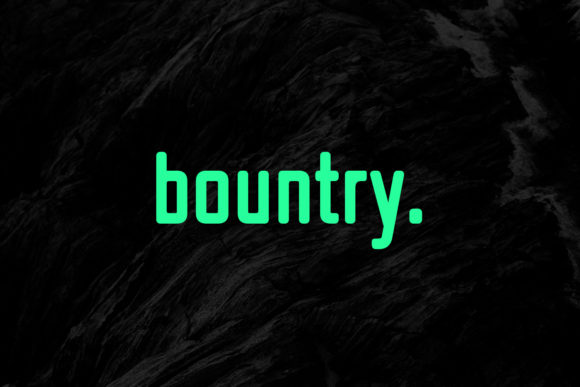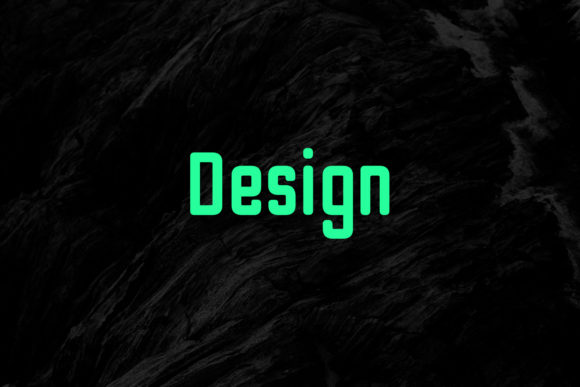
Discover the Timeless Elegance of Amoura Font: Elevate Your Designs with a Classic Sans Serif Typeface
In the world of typography, few fonts manage to strike a balance between modernity and timelessness. Amoura Font, a classic sans serif typeface, is one such exceptional find. Its clean lines, elegant curves, and versatile nature make it an ideal choice for designers and crafters looking to create outstanding logos, promotional content, marketing graphics, and more. In this article, we’ll delve into the characteristics of Amoura Font, explore its uses, and discuss why it should be a part of your design arsenal.
The Characteristics of Amoura Font
Amoura Font is a sans serif font, meaning it doesn’t have the small lines or flourishes at the ends of the letters, which gives it a clean and modern look. This typeface is characterized by its:
- Clean Lines: The font features straightforward, uncomplicated lines that make it highly legible, even at smaller sizes.
- Elegant Curves: Despite its simplicity, Amoura Font incorporates subtle curves that add a touch of elegance and sophistication to any design.
- Versatility: Its neutral appearance makes it suitable for a wide range of applications, from digital media to print materials.
Uses of Amoura Font
The versatility of Amoura Font makes it a valuable asset for various design projects. Here are some of the ways you can use this classic sans serif font:
- Logo Design: Create memorable and impactful logos that stand out. Amoura Font’s clean and elegant look makes it perfect for crafting logos that convey professionalism and sophistication.
- Promotional Content: Whether you’re designing flyers, brochures, or posters, Amoura Font can help you create visually appealing content that captures attention and communicates your message effectively.
- Marketing Graphics: From social media graphics to email newsletters, Amoura Font can elevate your marketing materials, making them more engaging and professional.
- Web Design: Enhance your website’s typography with Amoura Font. Its legibility and modern look make it an excellent choice for headings, subheadings, and even body text.
Why Choose Amoura Font?
With so many fonts available, why should you choose Amoura Font for your projects? Here are a few compelling reasons:
- Timeless Appeal: Unlike trendy fonts that may quickly go out of style, Amoura Font’s classic design ensures it remains relevant and stylish for years to come.
- High Legibility: The font’s clear and straightforward design makes it easy to read, which is crucial for ensuring your message is communicated effectively.
- Versatility: Amoura Font can be used across various platforms and design materials, making it a versatile addition to your font collection.
- Professional Look: The elegant and clean design of Amoura Font can help you achieve a professional look in your designs, which is essential for building credibility and trust with your audience.
Tips for Using Amoura Font Effectively
To get the most out of Amoura Font, consider the following tips:
- Pair it with Other Fonts: Experiment with pairing Amoura Font with other fonts to create visual interest and hierarchy in your designs.
- Adjust Font Sizes: Use different font sizes to emphasize important information and create a clear visual hierarchy.
- Play with Colors: Don’t be afraid to experiment with different colors to find the perfect match for your brand and design.
In conclusion, Amoura Font is a versatile and elegant sans serif typeface that can elevate your designs and help you create outstanding visual content. Its timeless appeal, high legibility, and professional look make it an excellent choice for designers and crafters looking to make a lasting impression. Whether you’re creating logos, promotional materials, or marketing graphics, Amoura Font is sure to become a valuable asset in your design toolkit.
| Font Name | Amoura Font |
| Author | Design Stag |